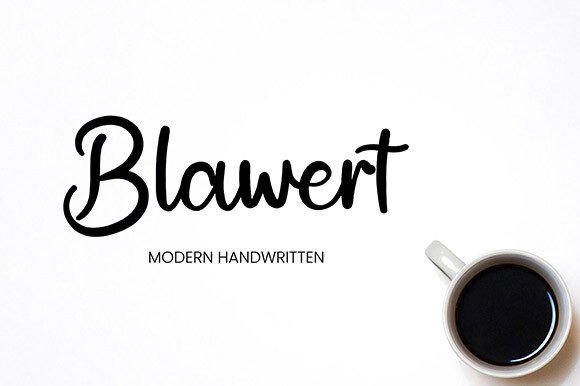
Journey into the world of Blawert Font, a contemporary handwritten font that exudes elegance and sophistication. Its unique style, meticulously crafted by the renowned Chatype Studio, captivates the eye and sets it apart from the ordinary.
Unleash your creativity with Blawert's versatility, a font designed to breathe life into your design endeavors. Whether you're crafting quotes that resonate, logos that leave a lasting impression, or blog headers that entice readers, Blawert's graceful curves and delicate strokes add a touch of flair that elevates your designs.
In the world of fashion and clothing design, Blawert Font shines like a radiant star. Its fluidity and elegant flow bring a sense of movement and dynamism to your creations. Use it to design captivating logos for your clothing brand, eye-catching posters that showcase your latest collection, or ribbons and labels that add a touch of luxury to your garments.
Embrace the beauty of handwritten letters with Blawert Font. Its charming imperfections and natural variations lend a personal touch to your invitations, stationery, and other paper goods. Celebrate special occasions with elegance, sending heartfelt messages penned in Blawert's enchanting style.
Explore the enchanting realm of Blawert Font, where creativity flourishes and designs come to life. Its versatility knows no bounds, adapting seamlessly to a wide range of projects and adding a touch of sophistication and charm to each one.